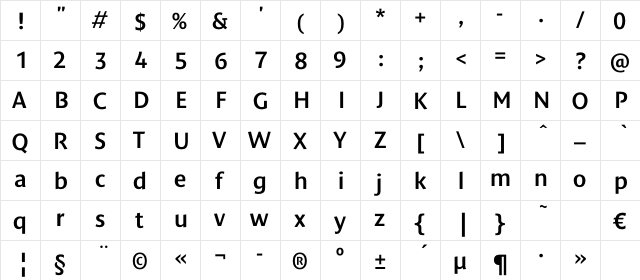
DendaNewC Regular
Design Context for DendaNewC Typeface
DendaNewC offers clean, dependable letterforms without strong stylistic allegiance, making it a practical choice for designers who need flexibility.